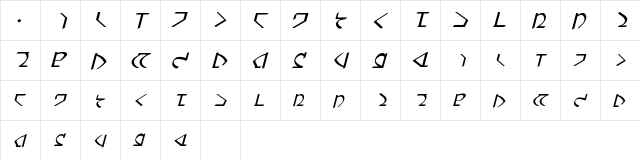
Dwemer Italic
| Foundry | Neale Davidson |
| Designer | Neale Davidson |
Design Context for Dwemer Typeface
Dwemer is a composed and adaptable typeface that performs quietly and consistently across a wide range of design contexts. The dynamic lean of this cut emphasises speed and emphasis in any layout.
Pro Tip: Try Dwemer for annotation and caption copy alongside an upright companion — the contrast in angle creates a dynamic but ordered typographic system.